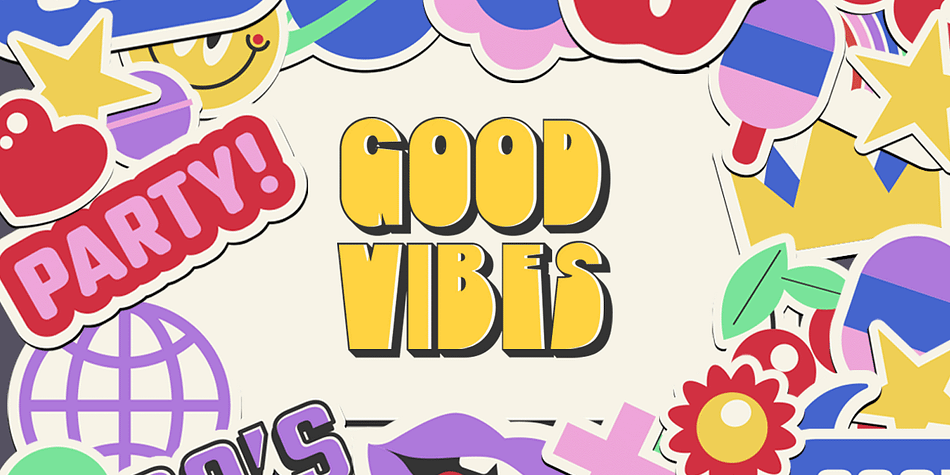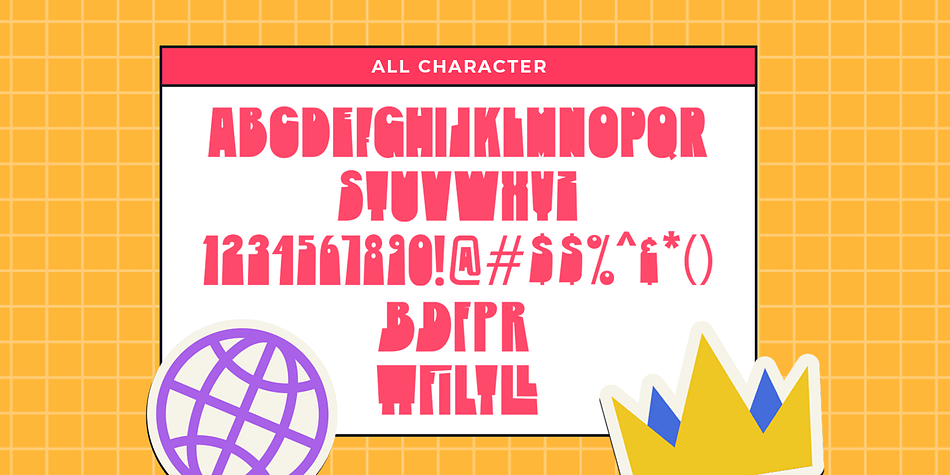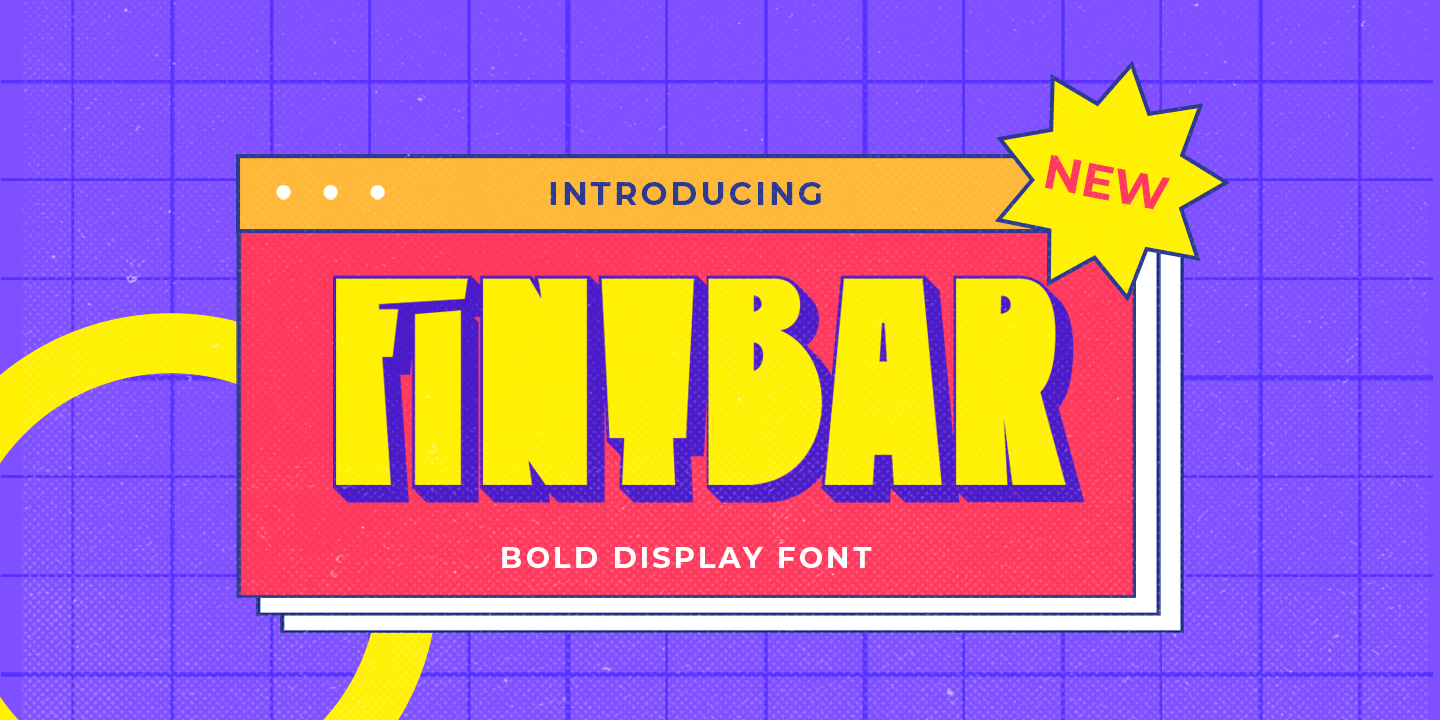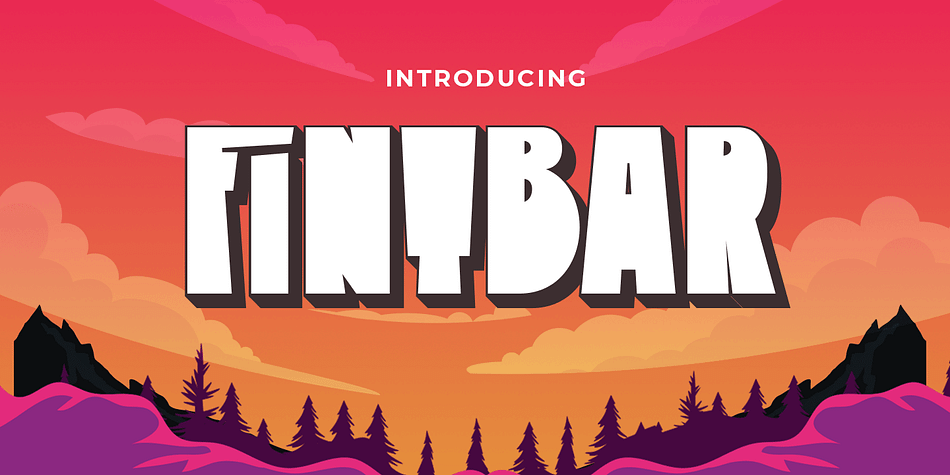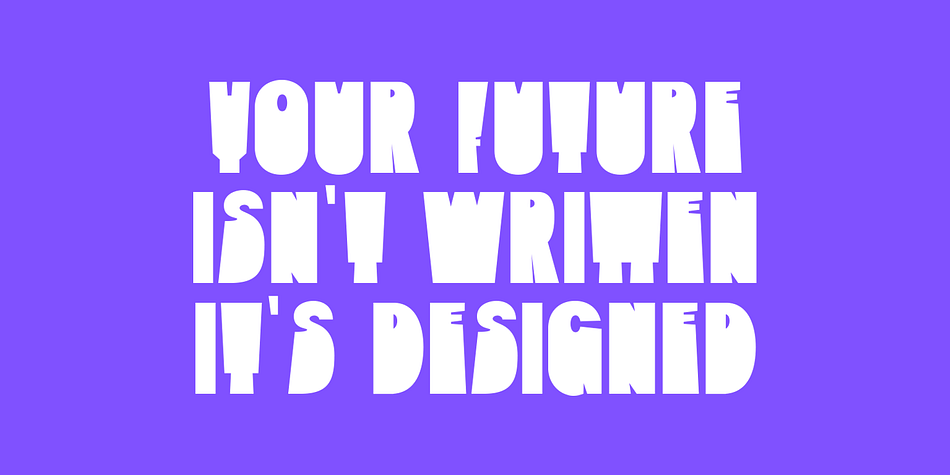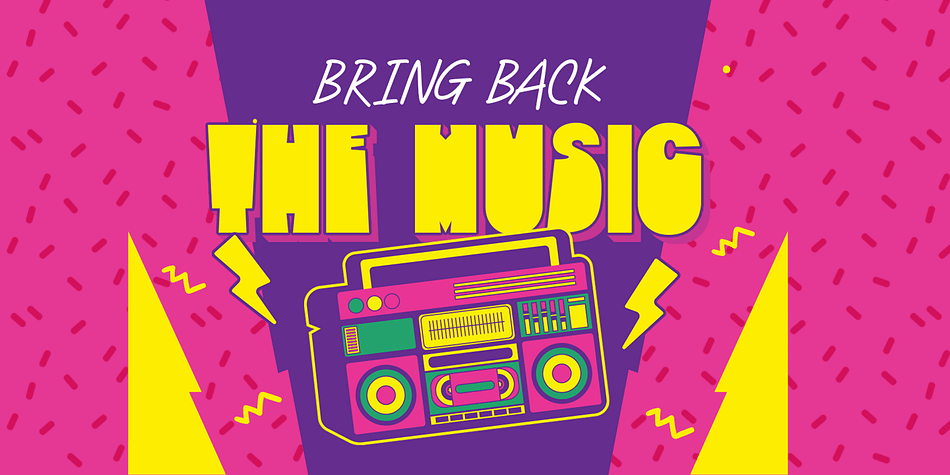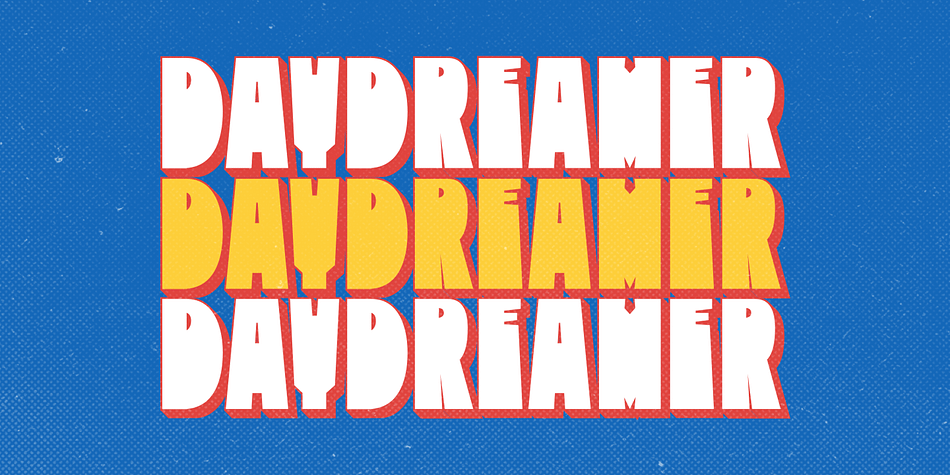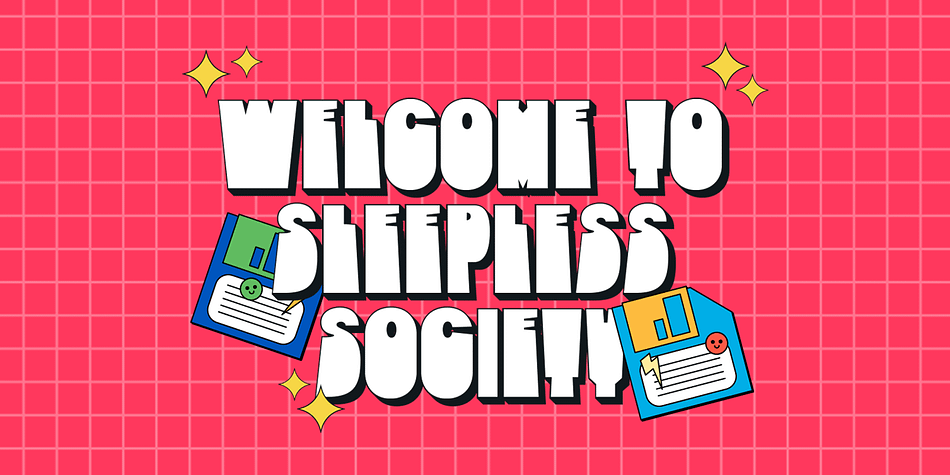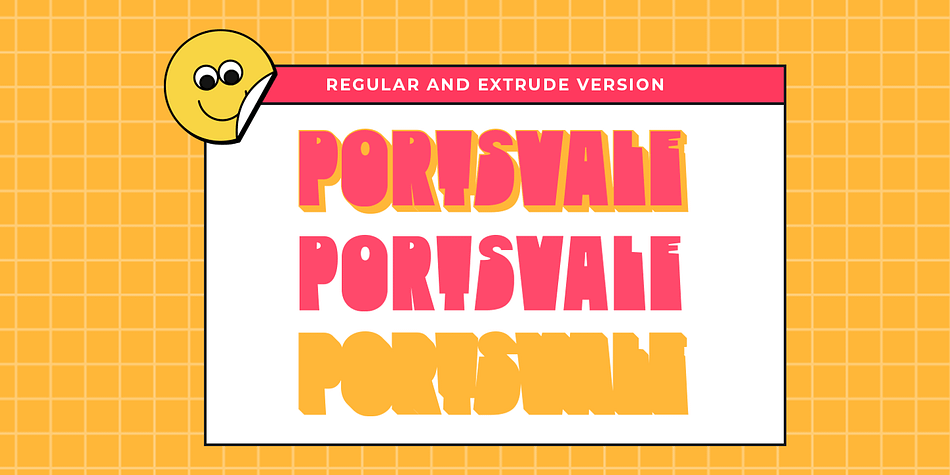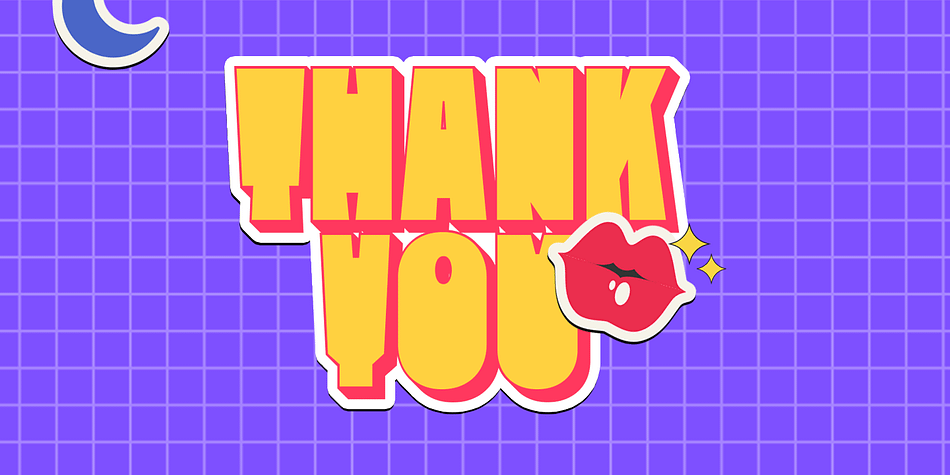
Fintbar
Designed by Hendry Juanda, Fintbar is a display and novelty font family. This typeface has two styles and was published by Letterhend Studio.
Fintbar is a bold display typeface with fun and playful looks. Available in two types, regular version and extrude. This type of font perfectly made to be applied especially in fun or child theme which is need a standout font, and the other various formal forms such as invitations, labels, logos, magazines, books, greeting / wedding cards, packaging, fashion, make up, stationery, novels, labels or any type of advertising purpose.
Regular and Extrude